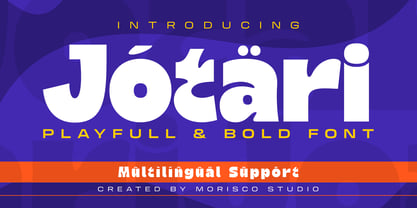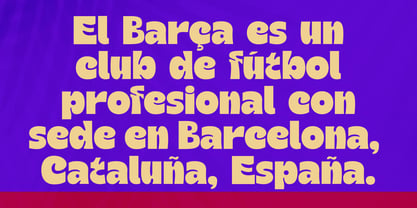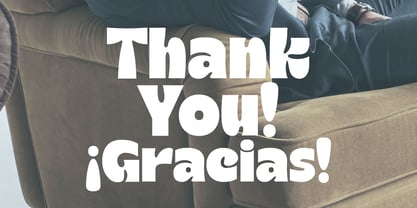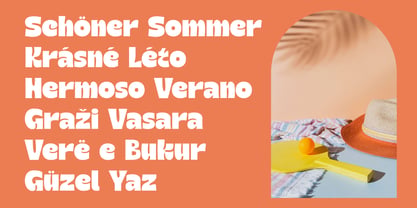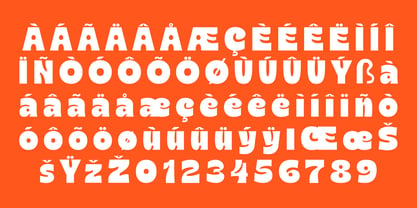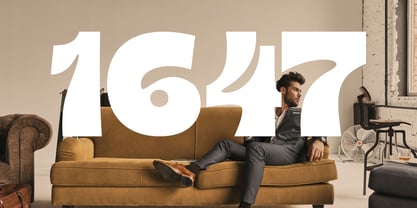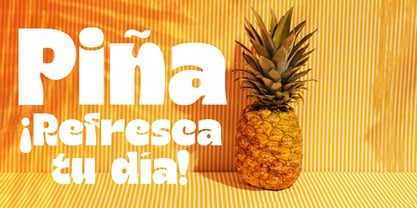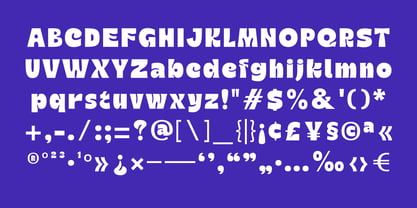
Jotari
by Morisco Studio
The Jotari Font Family was designed by Fathur Rahman and published by Morisco Studio. Jotari contains 1 styles. More about this family
Jotari is a playfull and bold font with a unique character designed by Morisco Studio. This typeface is well-suited for headlines and any project, like branding, print templates, logos, and more.
Features:
• Uppercase & Lowercase
• Symbols & Punctuation
• Multilingual
Designers: Fathur Rahman
Foundry: Morisco Studio